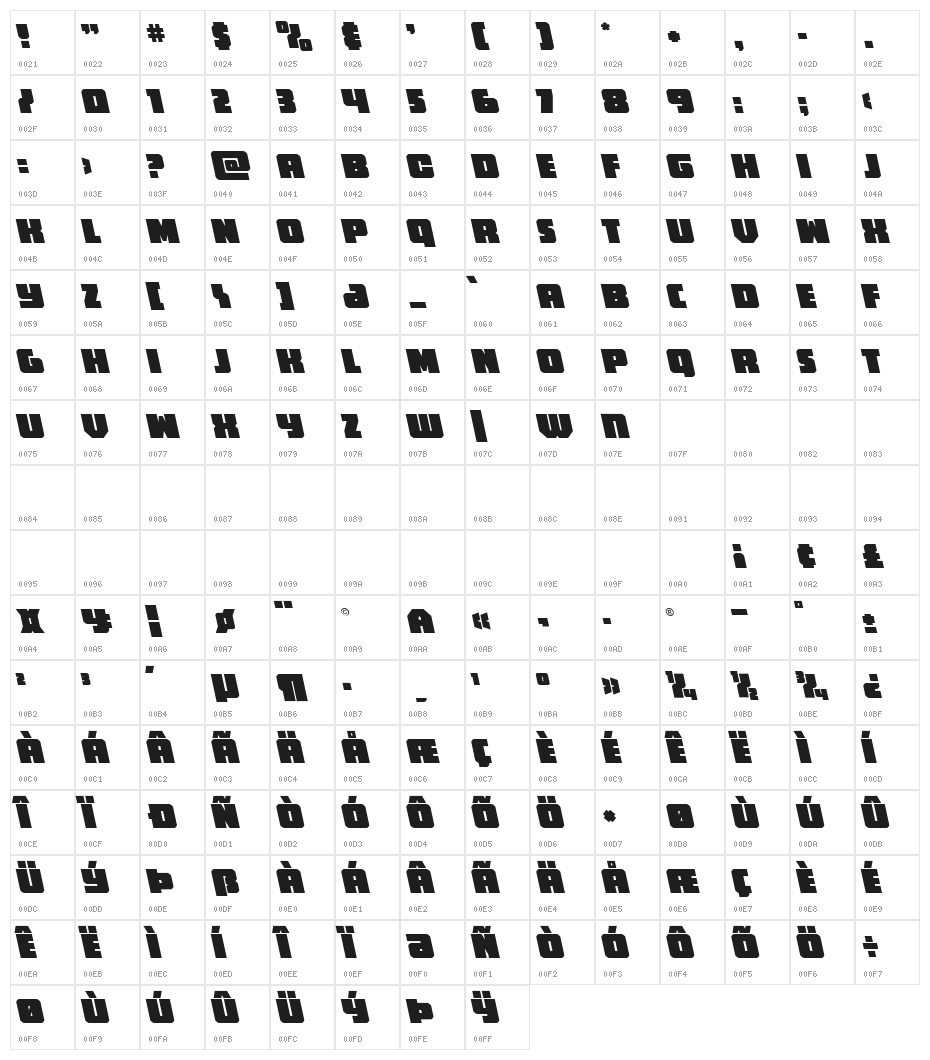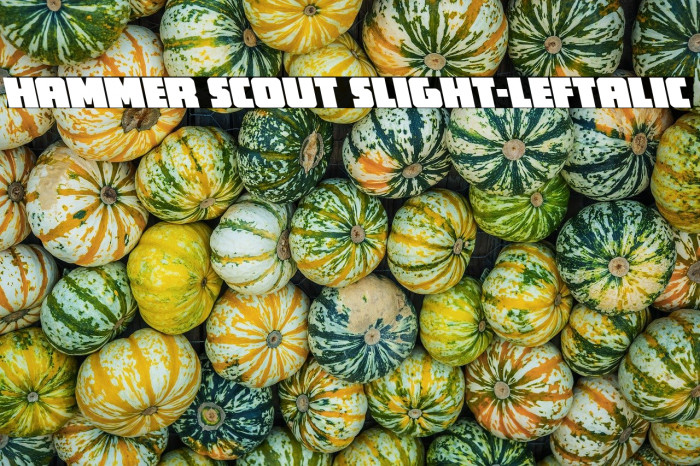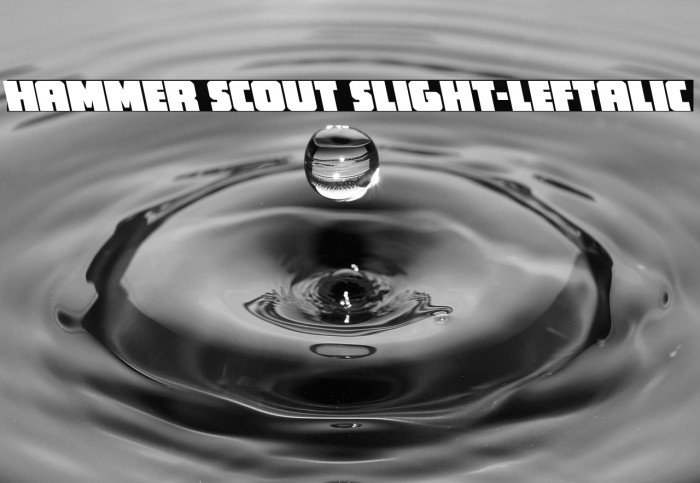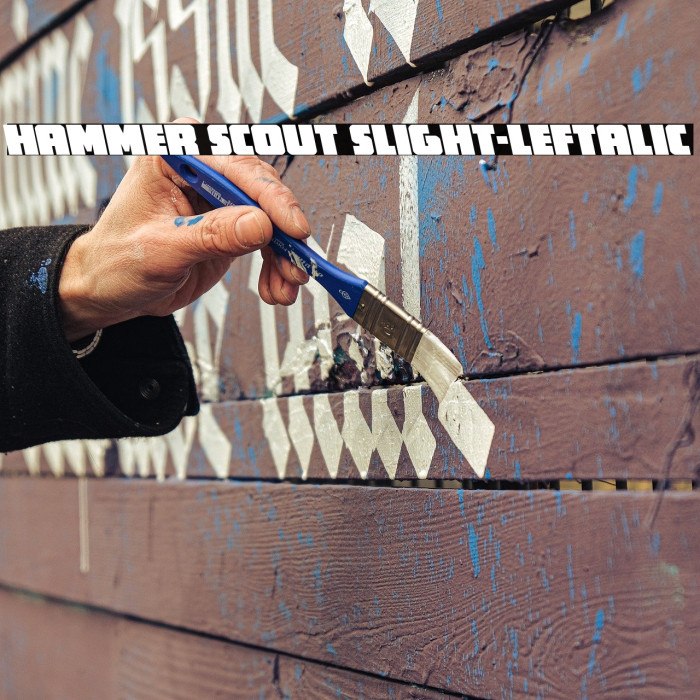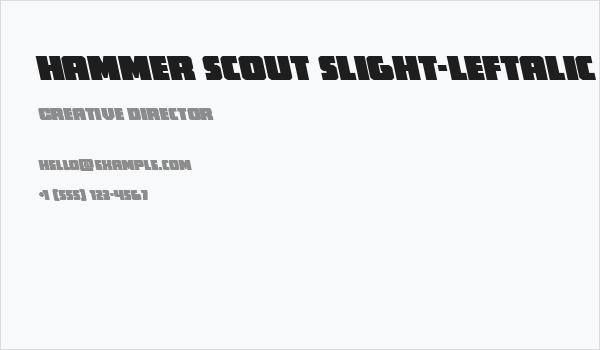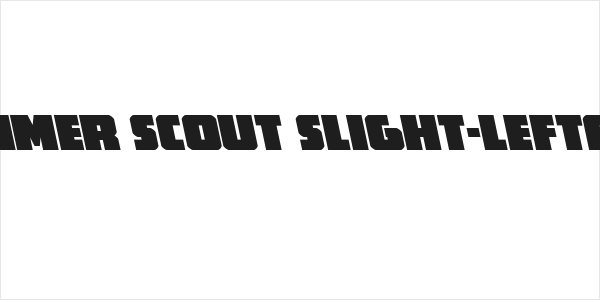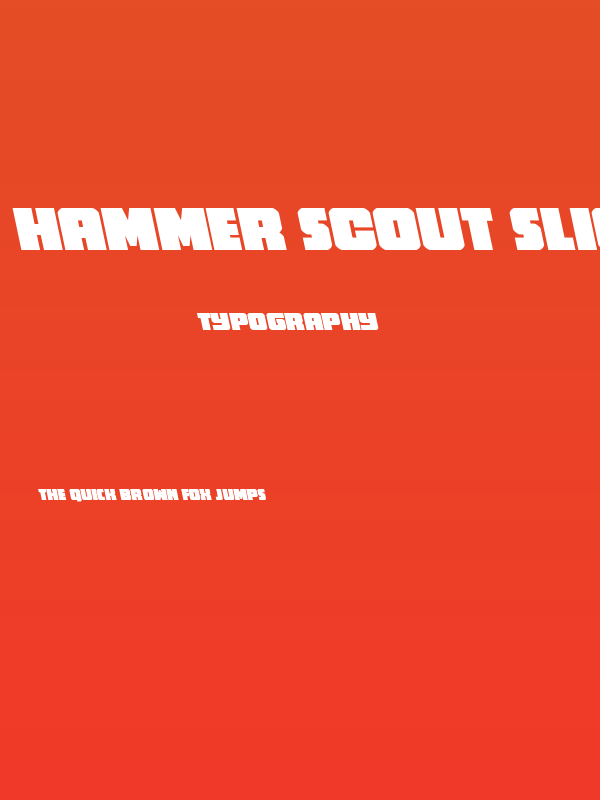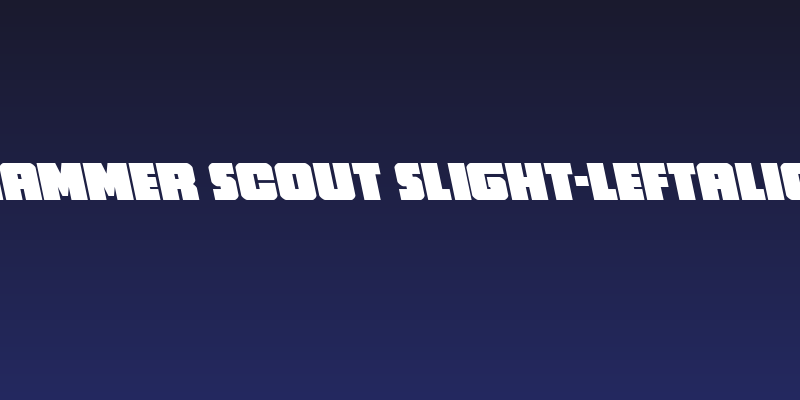
Hammer Scout Slight-Leftalic Font
Hammer Scout Slight-Leftalic Description
This font features a bold and impactful design with a slight leftward slant, giving it a dynamic and energetic appearance. The characters are thick and blocky, with a strong presence that commands attention. The uppercase and lowercase letters maintain a consistent style, with angular edges and a uniform stroke width. The numbers and special characters follow the same bold and slanted design, ensuring a cohesive look across all elements. This font is ideal for projects that require a strong visual impact and a modern, edgy feel.
Proposed ProjectsPerfect for sports branding, action movie posters, or any project needing a bold and energetic typeface.